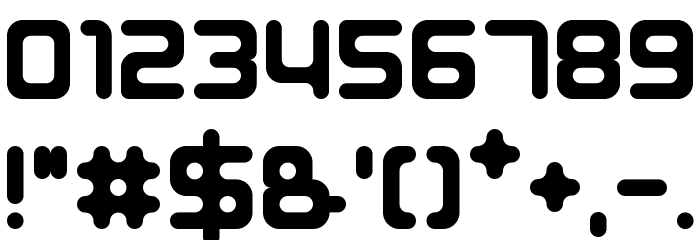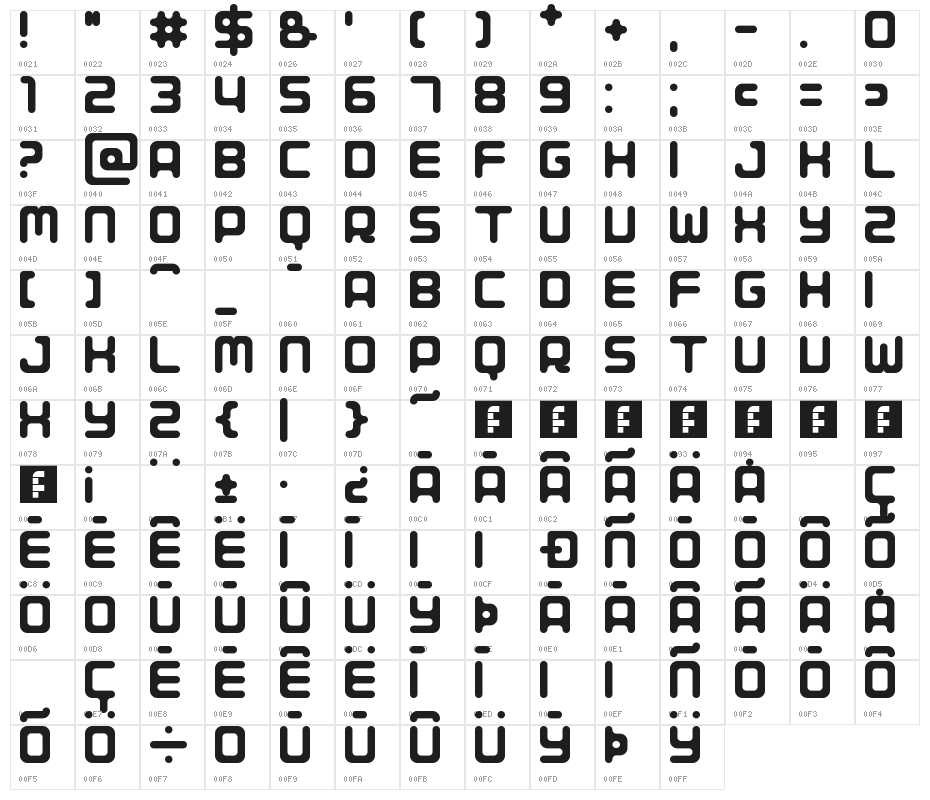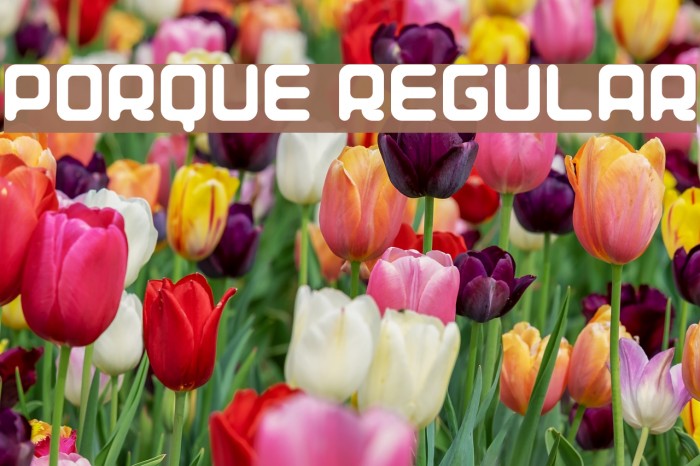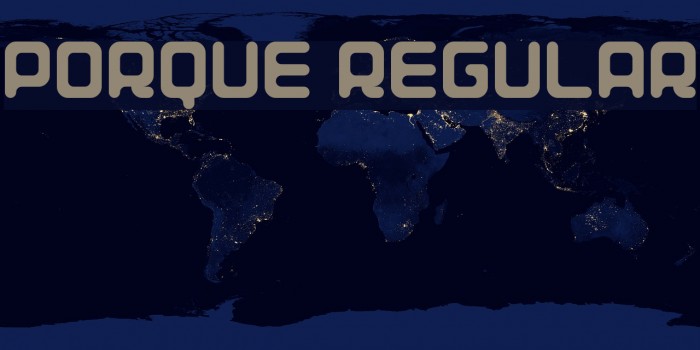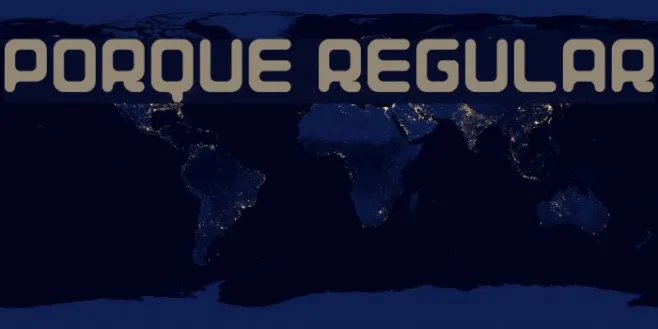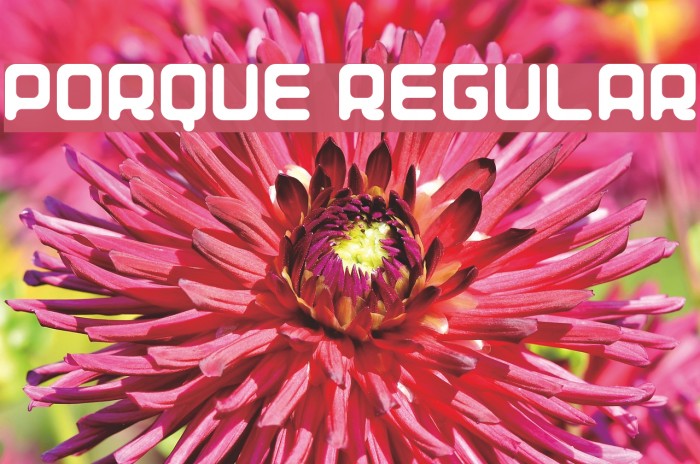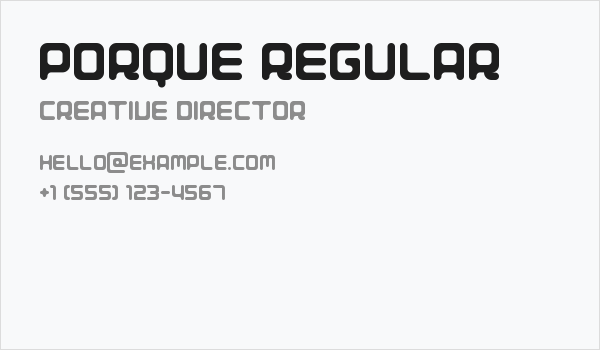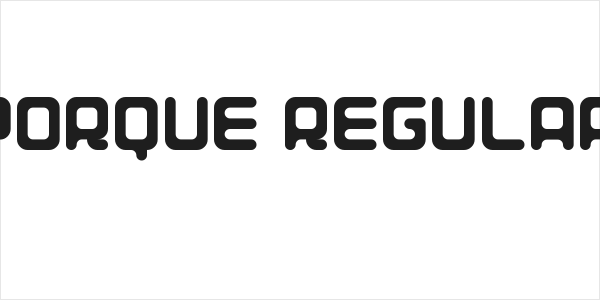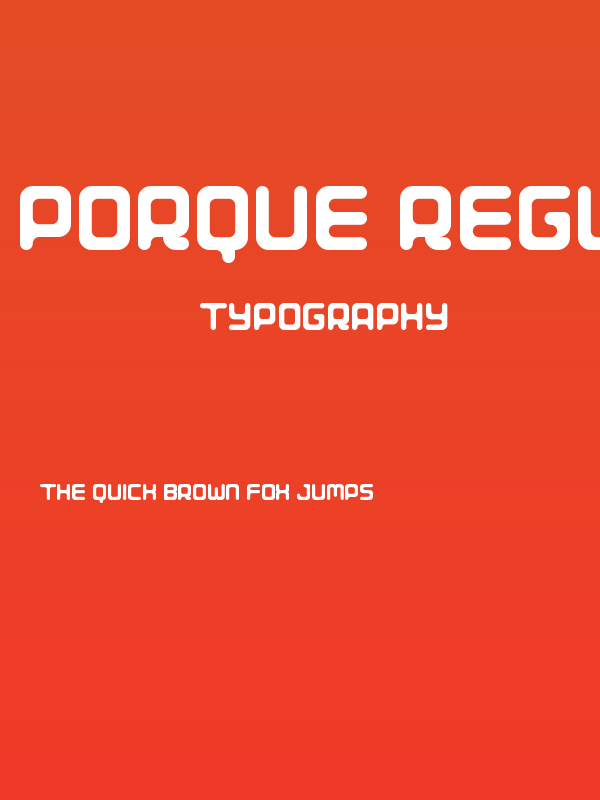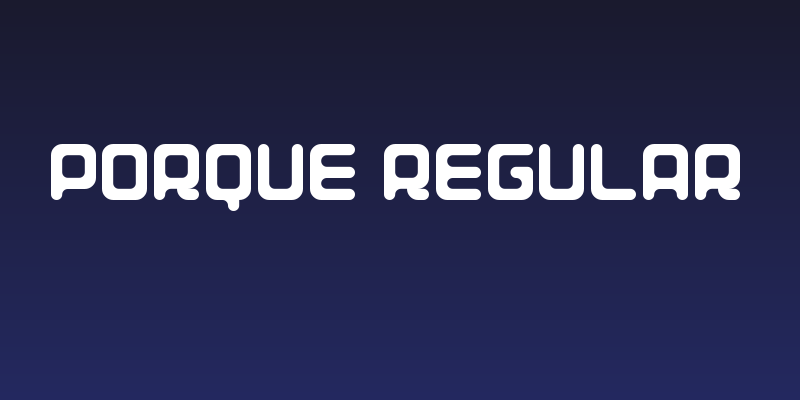
Porque Regular Font
Porque Regular Description
This font features a bold, rounded style with a modern and playful aesthetic. The characters are uniformly thick, giving it a strong presence while maintaining a friendly and approachable feel. The rounded edges soften the overall look, making it suitable for a variety of creative applications. The consistent stroke width throughout the characters ensures readability, while the unique design adds a distinctive touch. The font includes uppercase and lowercase letters, numbers, and a selection of special characters, all maintaining the same rounded and bold characteristics.
| Proposed Projects | Ideal for branding, packaging, children's books, and playful advertising campaigns. |